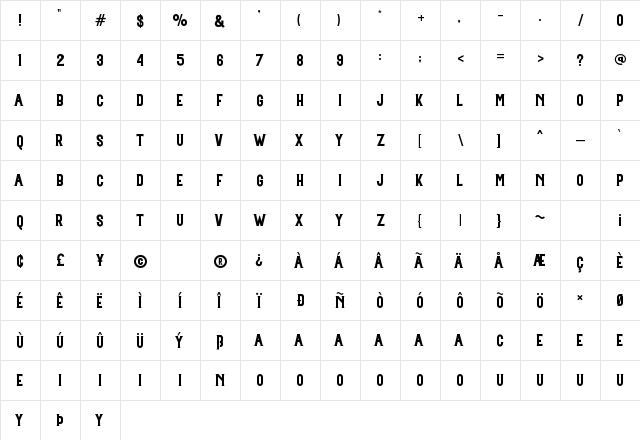
Mosherif Regular
| Foundry | Hans Co |
| Designer | Burhan Afif |
Design Context for Mosherif Typeface
Mosherif offers clean, dependable letterforms without strong stylistic allegiance, making it a practical choice for designers who need flexibility.